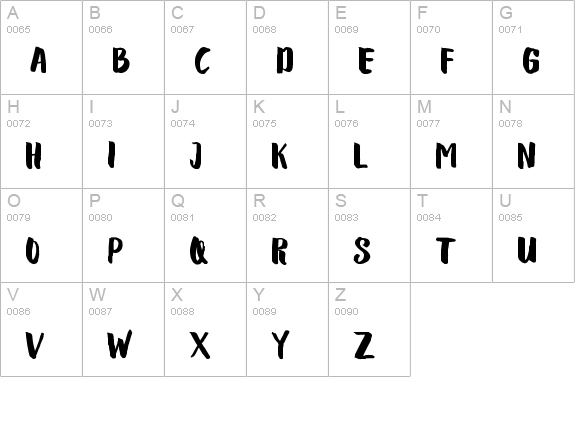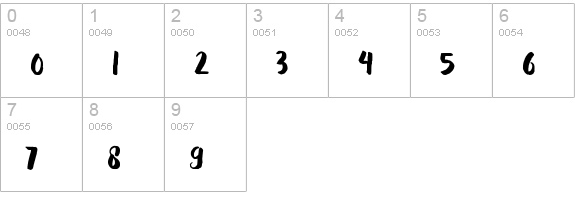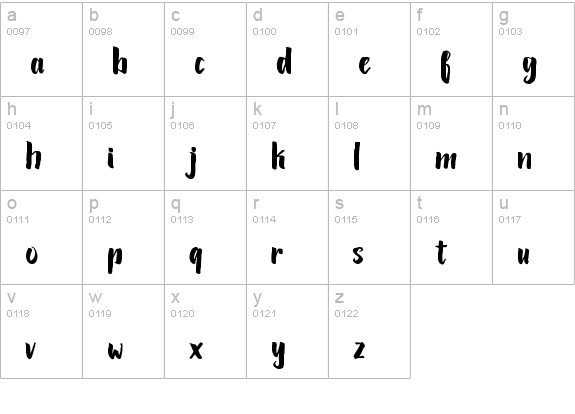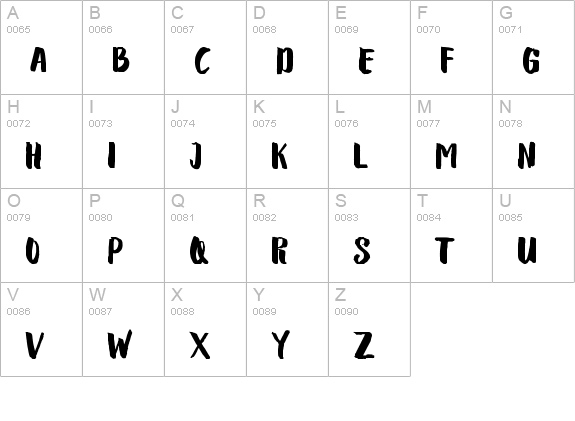
Lariess Font Details
Lariess is a free for personal use font in the Script > Brush category, designed by nursolikh. It has been downloaded 269 times and is available for Windows, Mac and Linux.
Lariess font is a beautifully crafted typeface that exudes elegance and sophistication. Its sleek lines and balanced curves make it perfect for a wide range of design projects, from branding to packaging to editorial. This versatile font is sure to make your text stand out and leave a lasting impression on your audience.